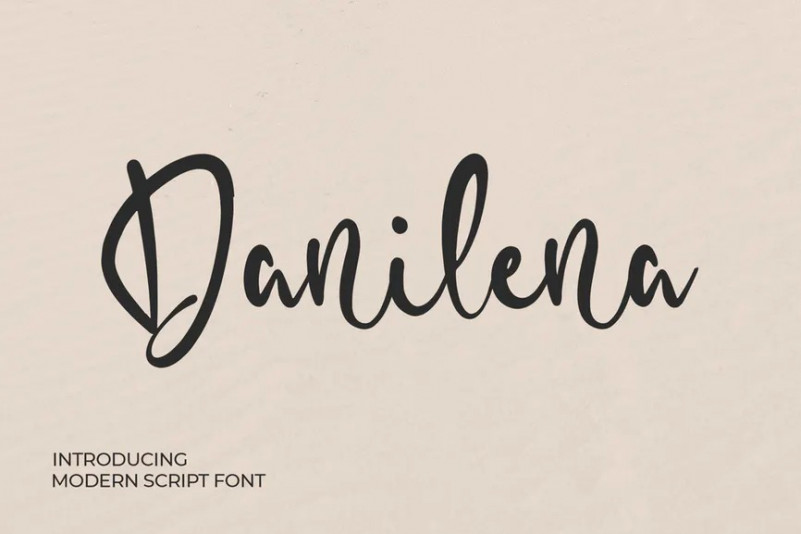
Danilena Font
Introducing of our new product the name is Danilena Modern Script Font. Danilena inspired by modern calligraphy this font is a fun theme very good for signature, poster, fashion, wedding, branding etc